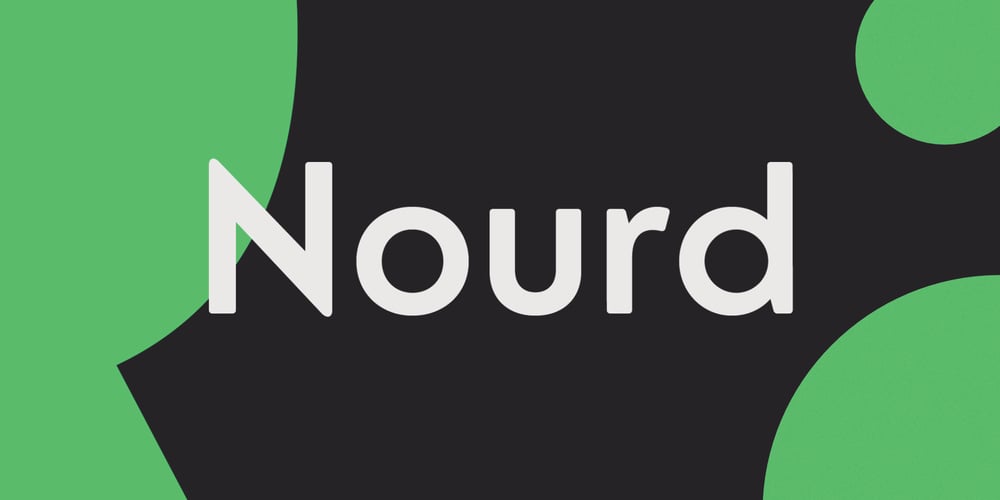
Nourd Font Family was designed by Alfredo Marco Pradil and published by Hanken Design Co.. Nourd contains 6 styles and family package options. A sans serif with rounded features that softens its strong geometric outline.